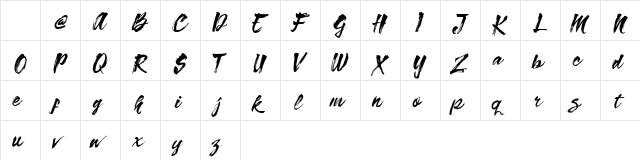
Complete Hardy Blow glyph index. Displaying only characters natively supported by Hardy Blow font.
Hardy Blow is a composed and adaptable typeface that performs quietly and consistently across a wide range of design contexts.
Who designed the Hardy Blow font?